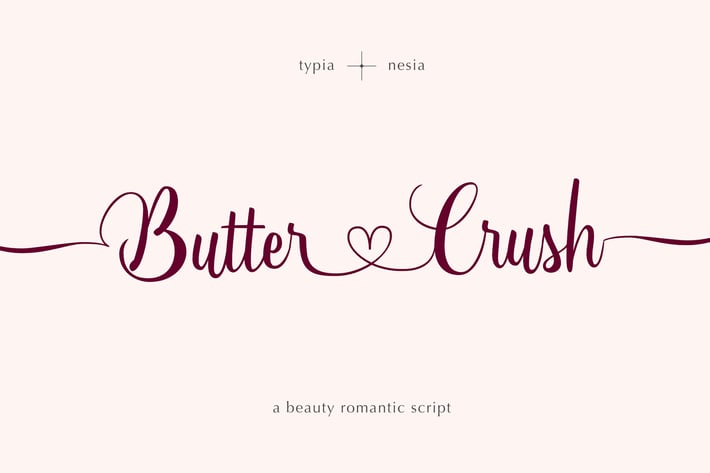
Butter Crush - Wedding Calligraphy Script Font
Butter Crush - Wedding Font - a Modern Brush Calligraphy Script Font with ligatures and swashes.
The beauty flow and easy brush calligraphy style makes it perfect for wedding design, blogging, social media design, logo and branding, invitation, gretting cards or simply use it in your next design project. It comes with ligatures and swashes. You can combine it to make a perfect beautiful calligraphy design.